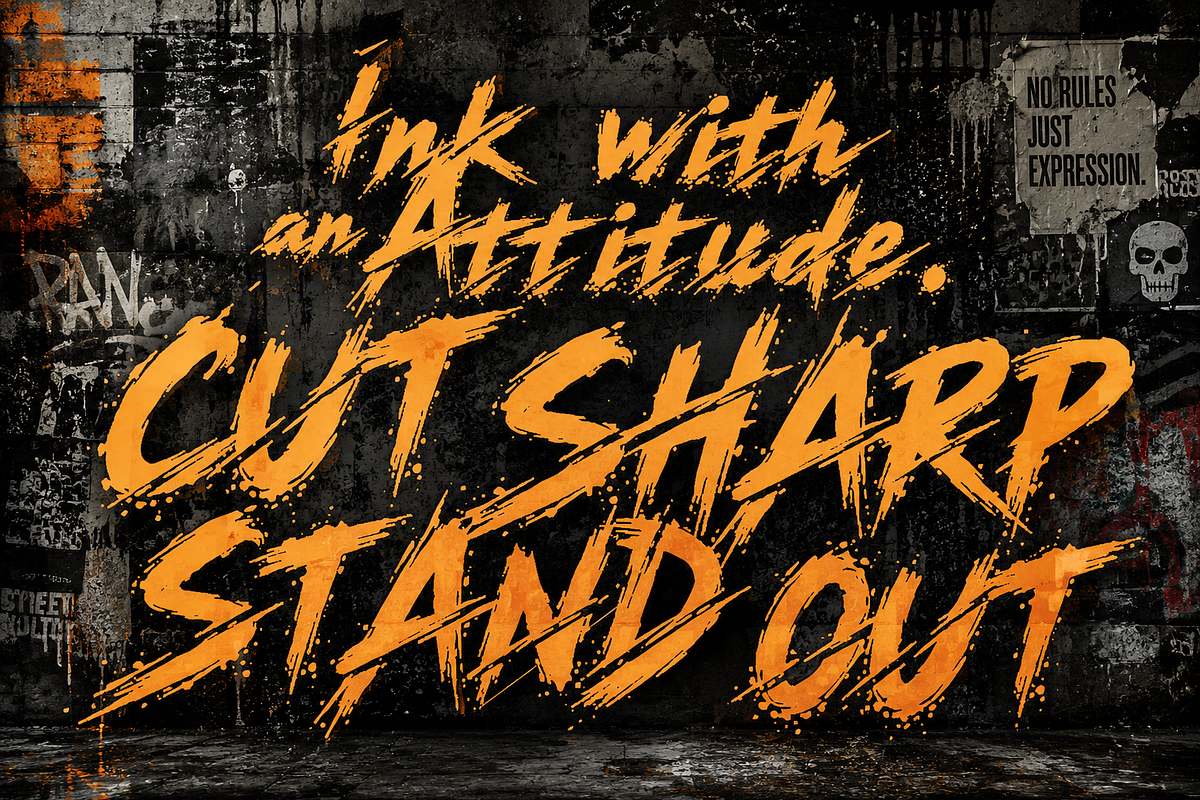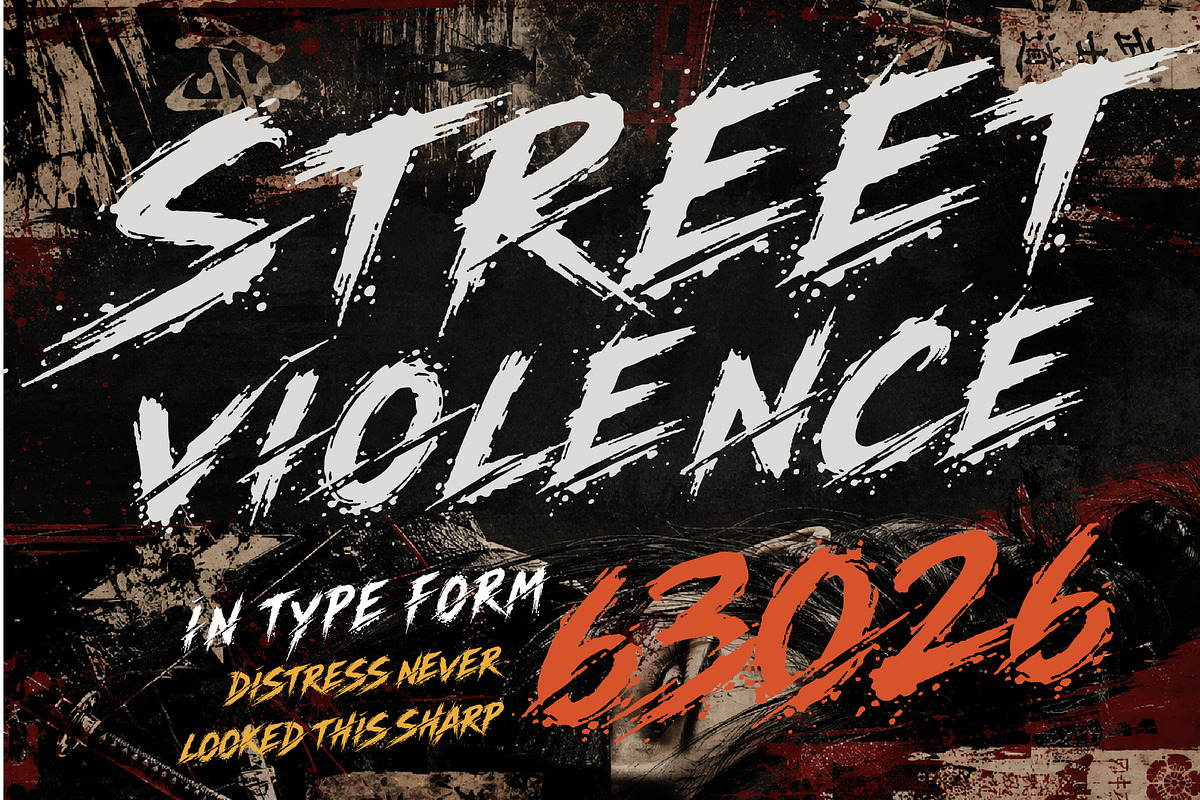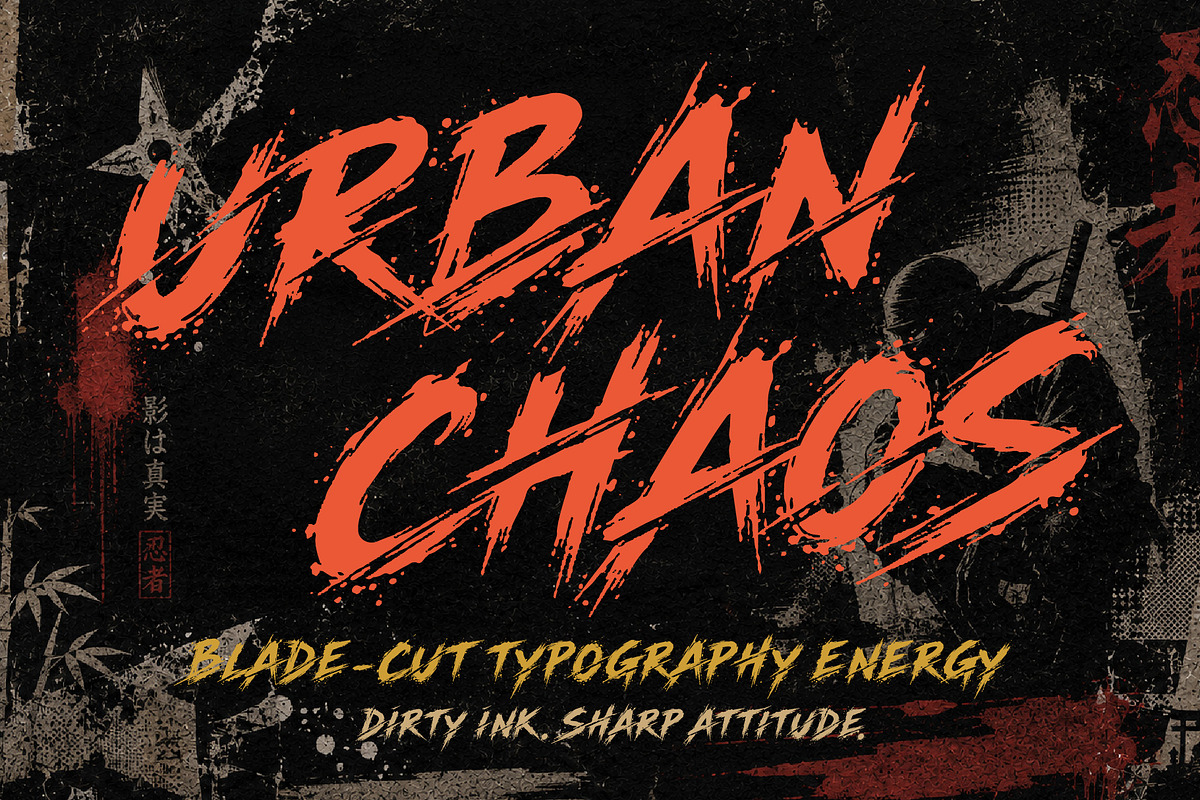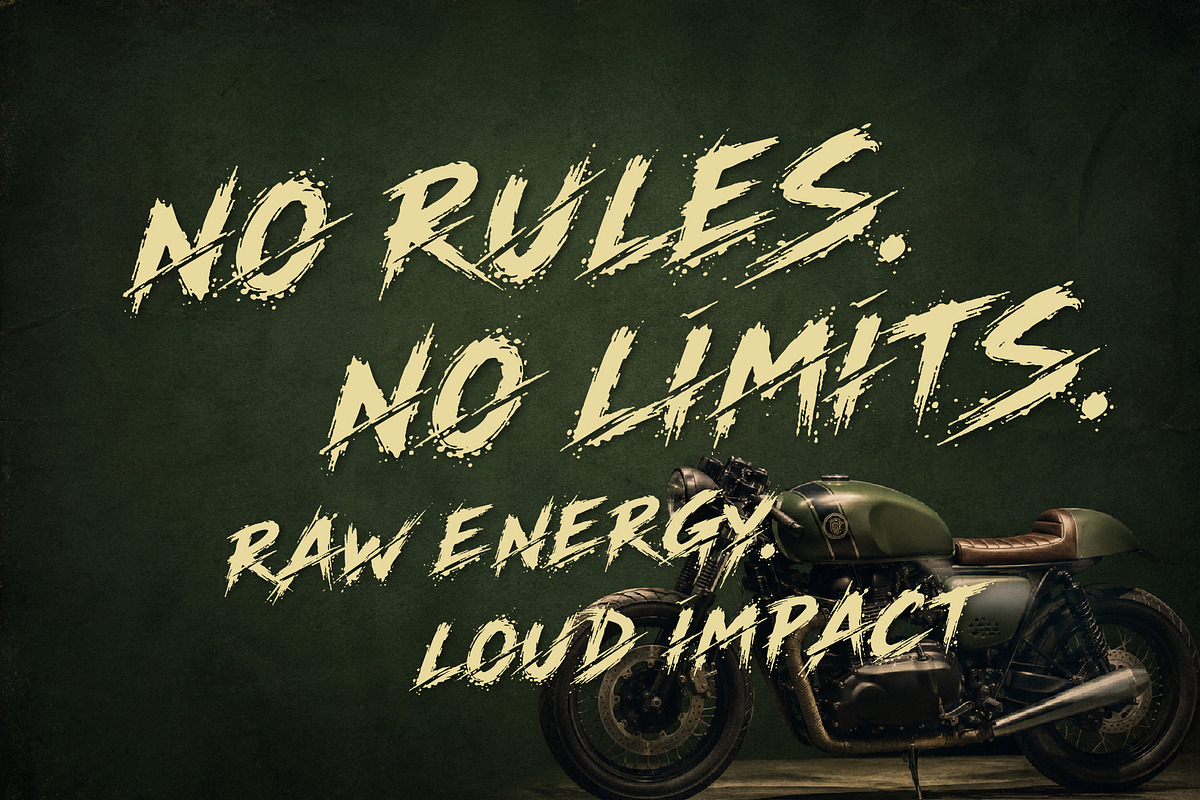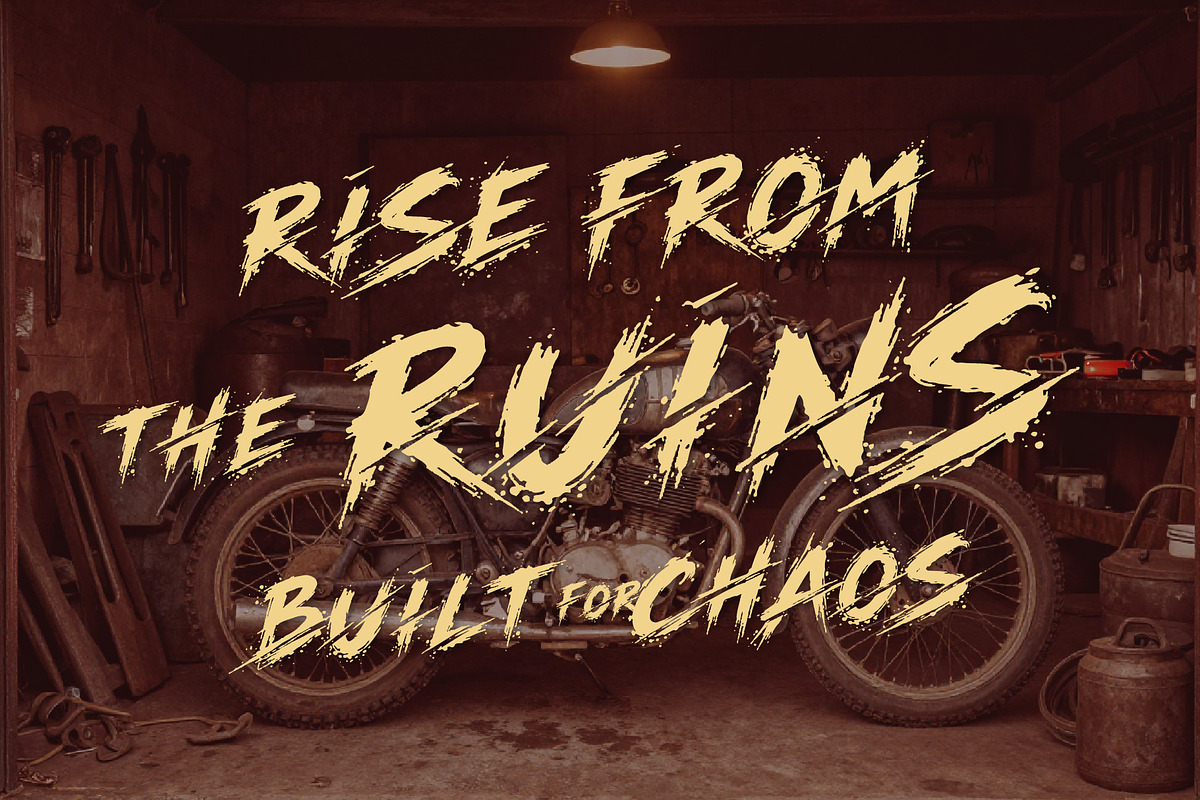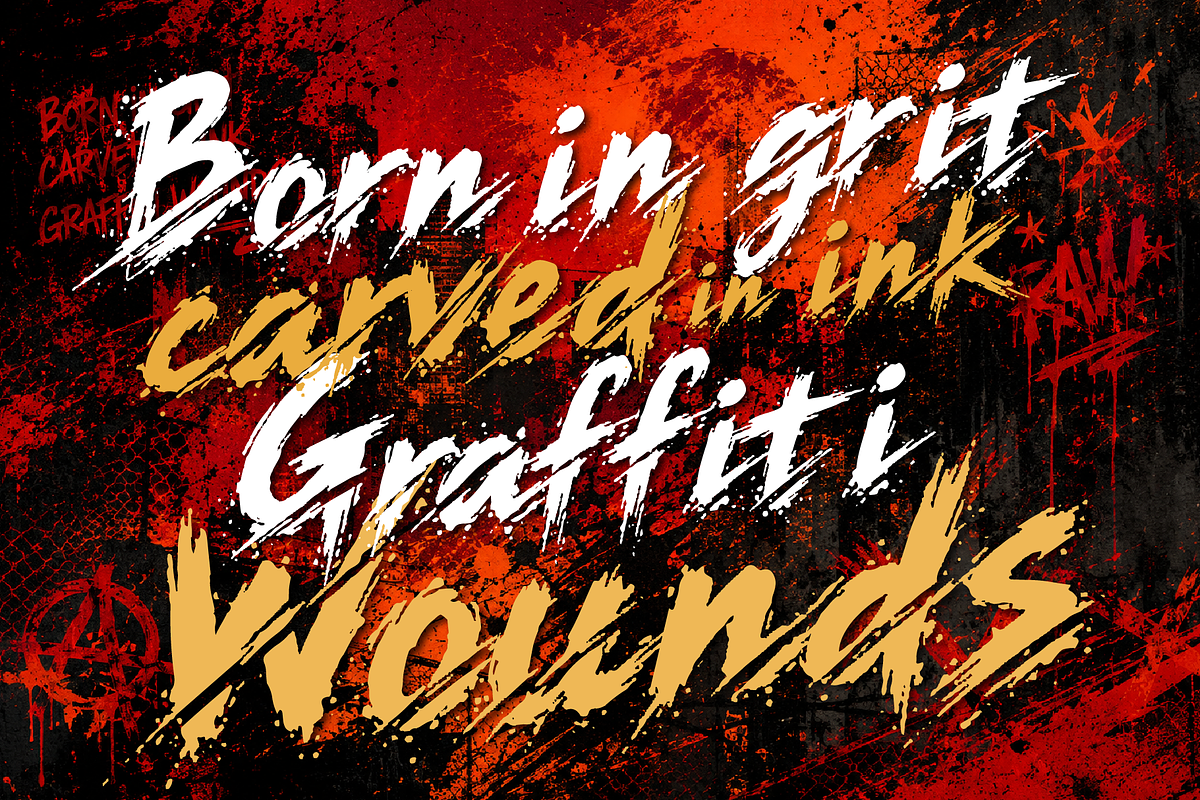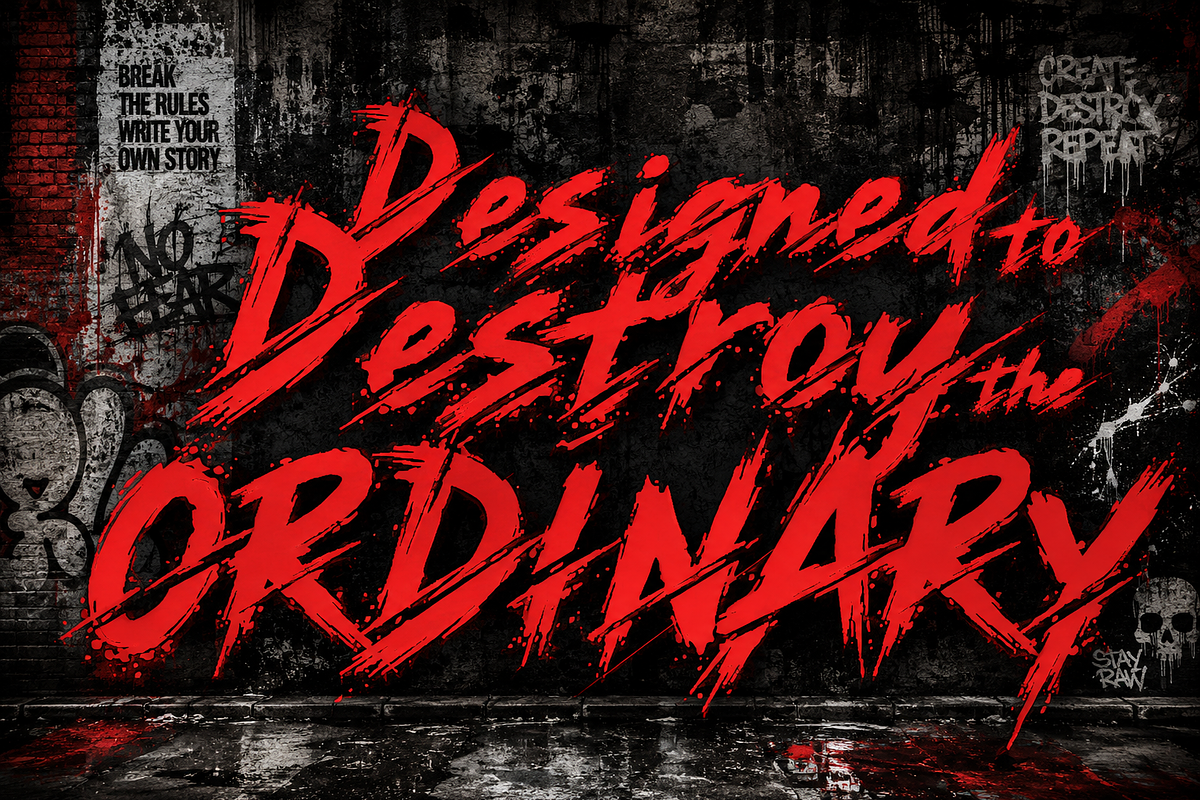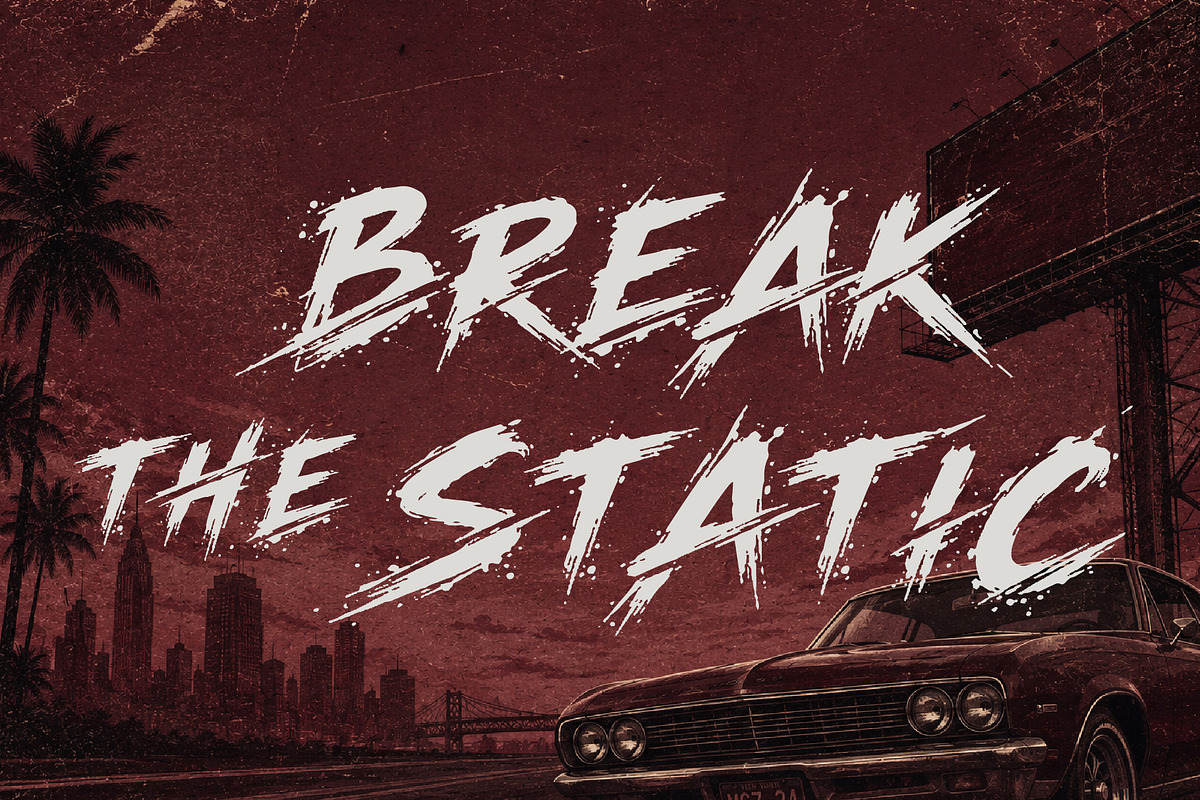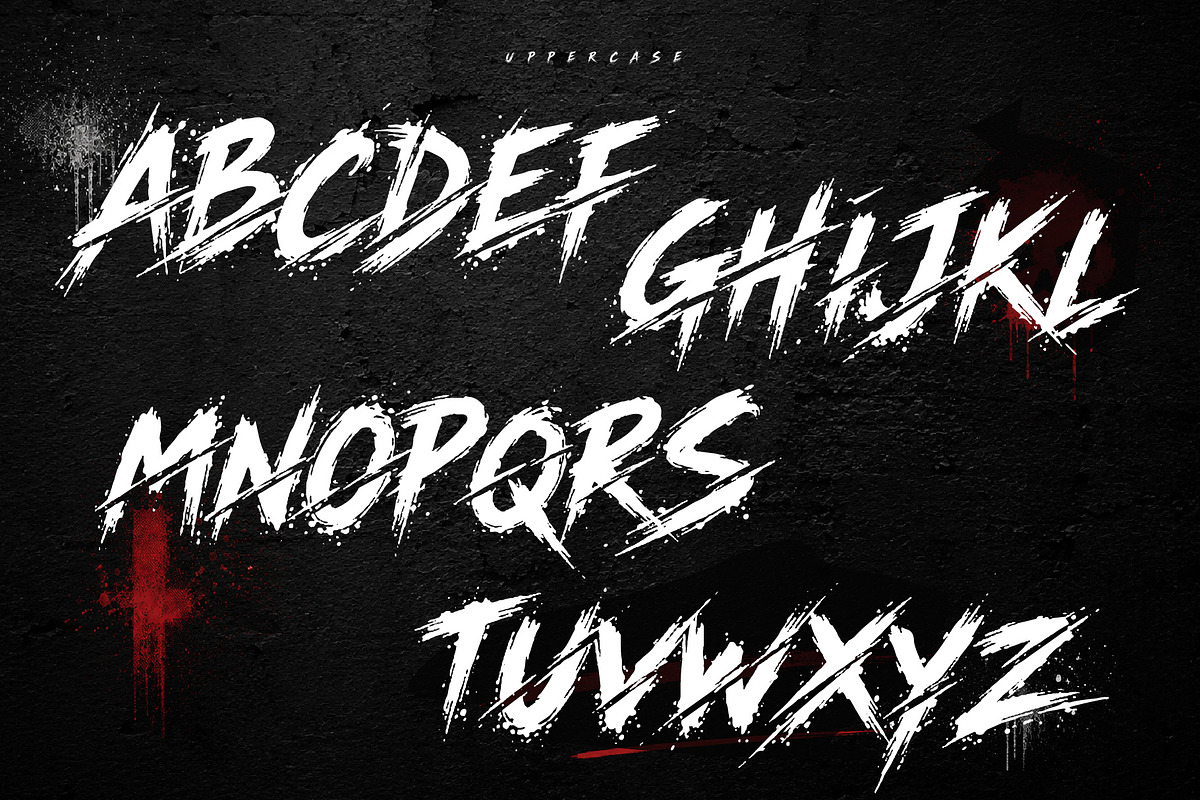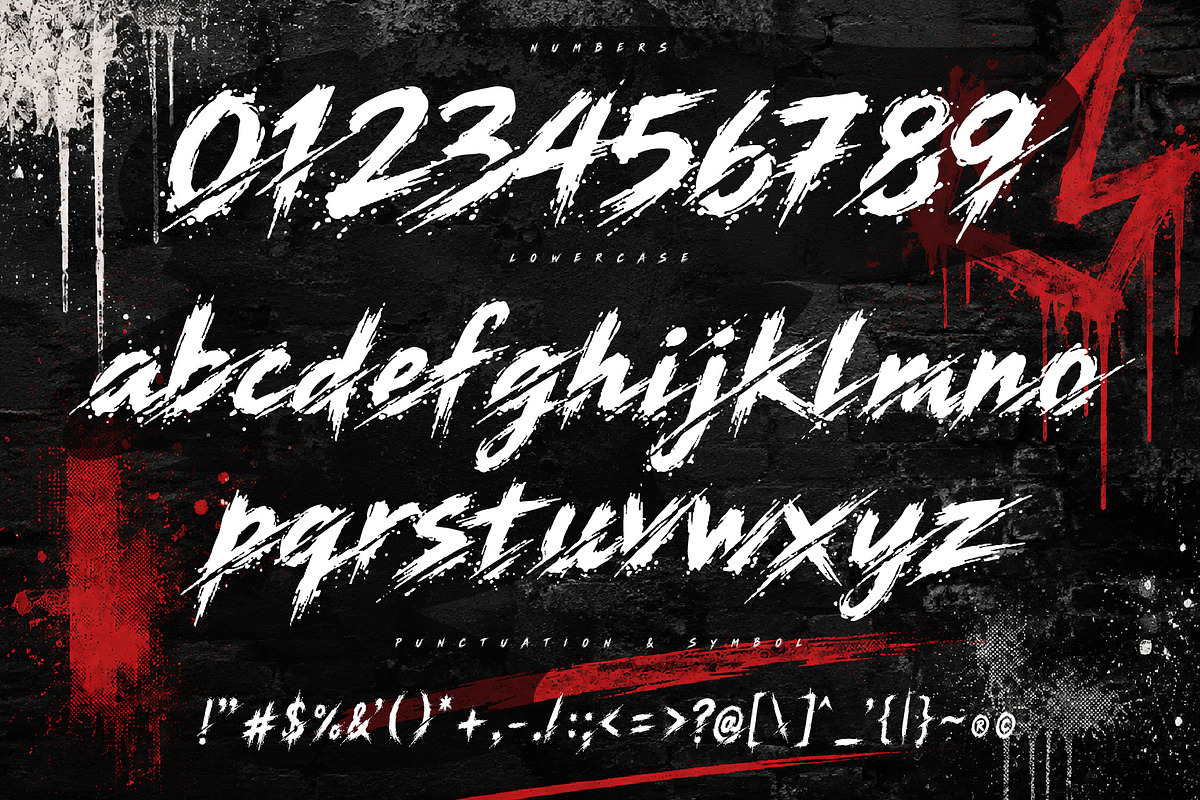
MoonSlash - Raw Cuts Typeface
MoonSlash a street born display font drenched in grit, scratches, and violent brush strokes. Think torn posters, katana cuts, and paint that never dried right. Built for designs that don’t whisper they hit hard 💀🔥 Born from the underground visual noise of urban decay, this display typeface embodies raw street energy and destructive beauty. Every glyph is crafted with distressed cuts, ink splatters, and blade-like slashes that feel as if they were carved directly into torn posters and concrete walls.
Inspired by graffiti warfare, alleyway textures, and brutal street aesthetics, this font delivers a powerful visual punch for bold branding, music covers, posters, streetwear designs, and cinematic titles.
Nothing here is clean. Nothing here is soft. This is typography built to strike sharp, loud, and unapologetically raw 🔥💀
Perfect for creators who want their message to feel alive, dangerous, and unforgettable.